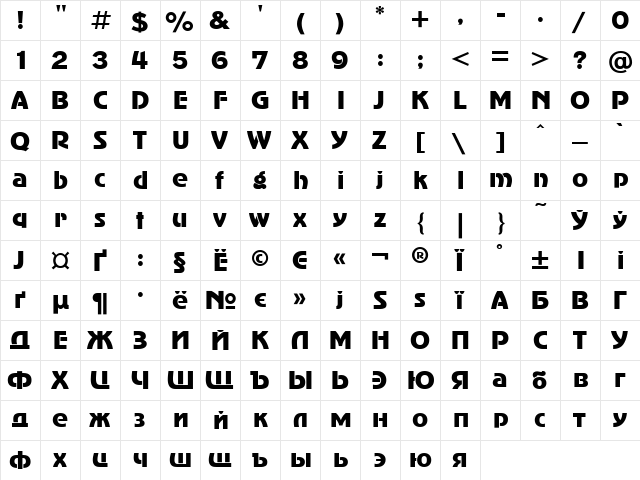
UkrainianAdverGothic Regular
Design Context for UkrainianAdverGothic Typeface
UkrainianAdverGothic has the quiet confidence of well-executed sans-serif typography: versatile, unobtrusive, and dependable at any size.
Font Pairing: Works well alongside a characterful serif or display font that can carry the expressive load while UkrainianAdverGothic handles the functional copy.
Pro Tip: Use UkrainianAdverGothic for UI labels, navigation, and short-form body copy where clean legibility is the priority.